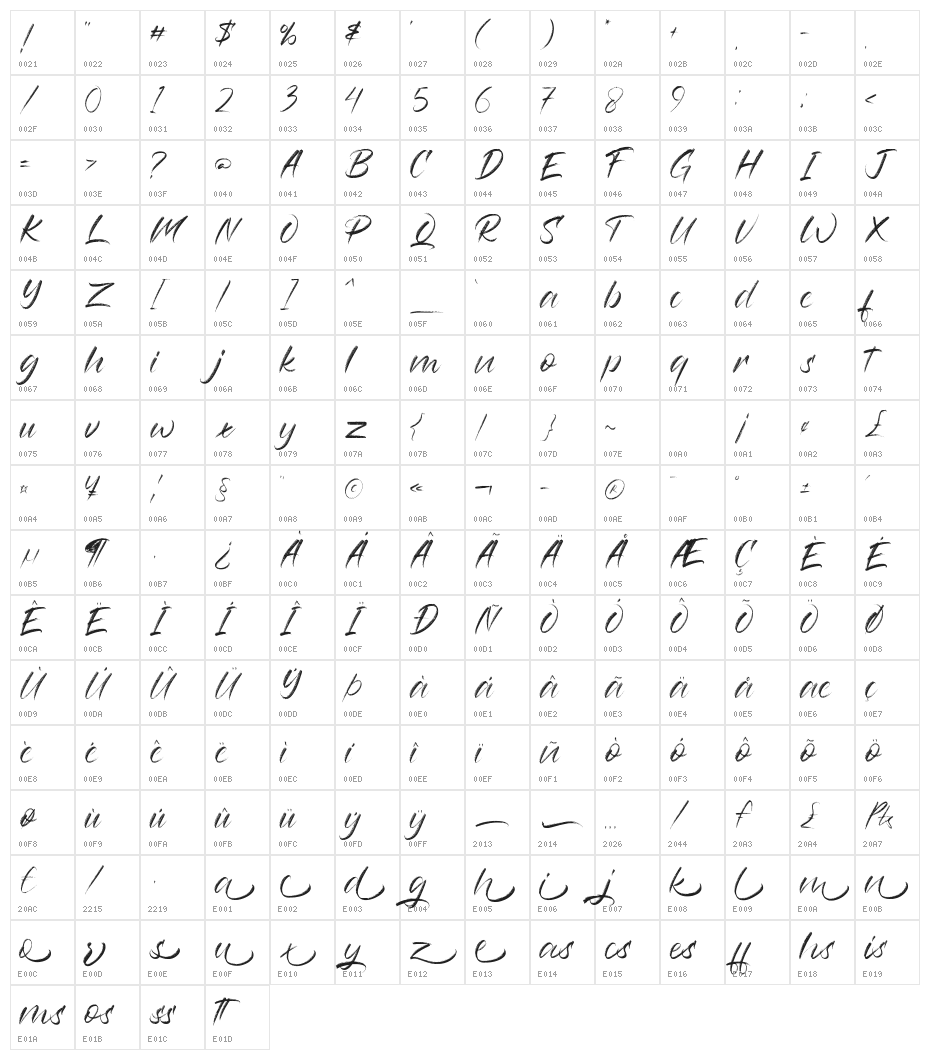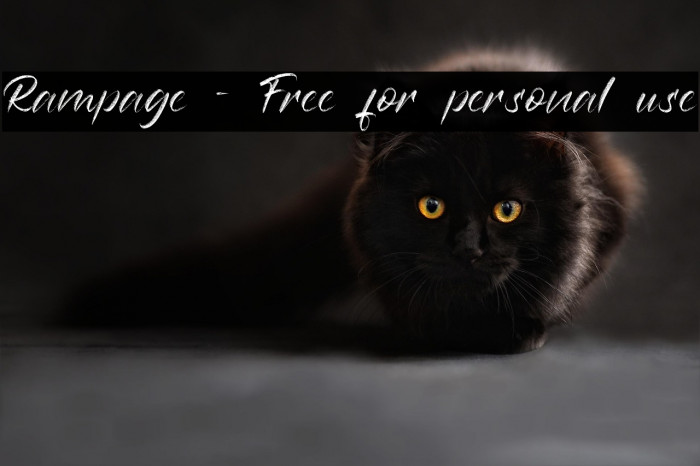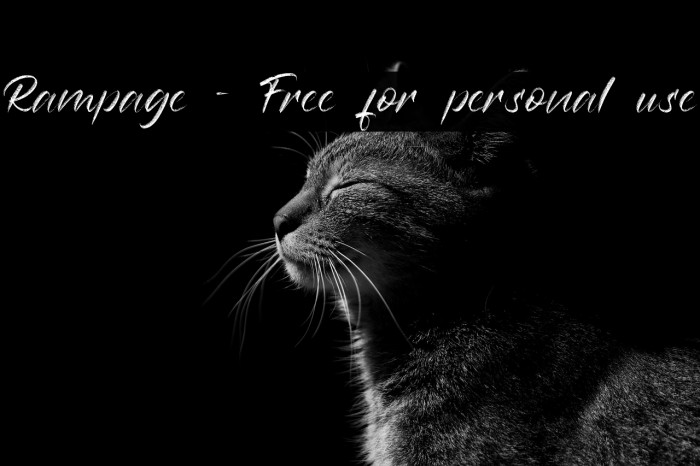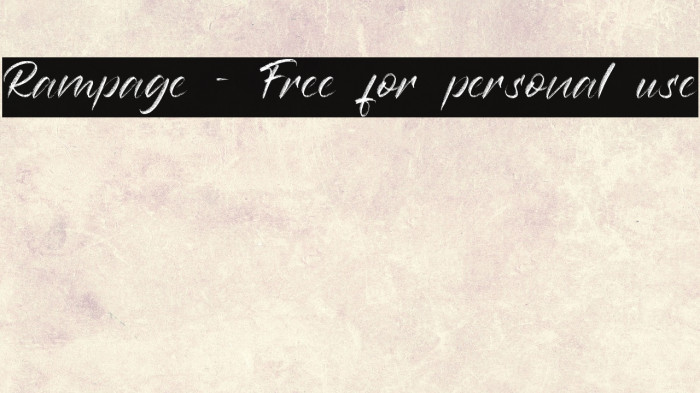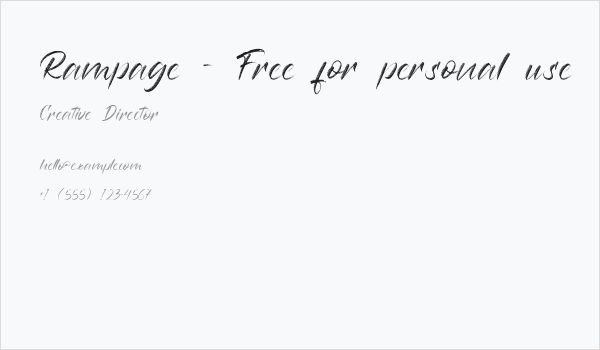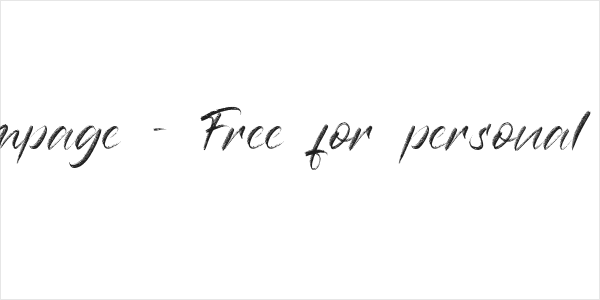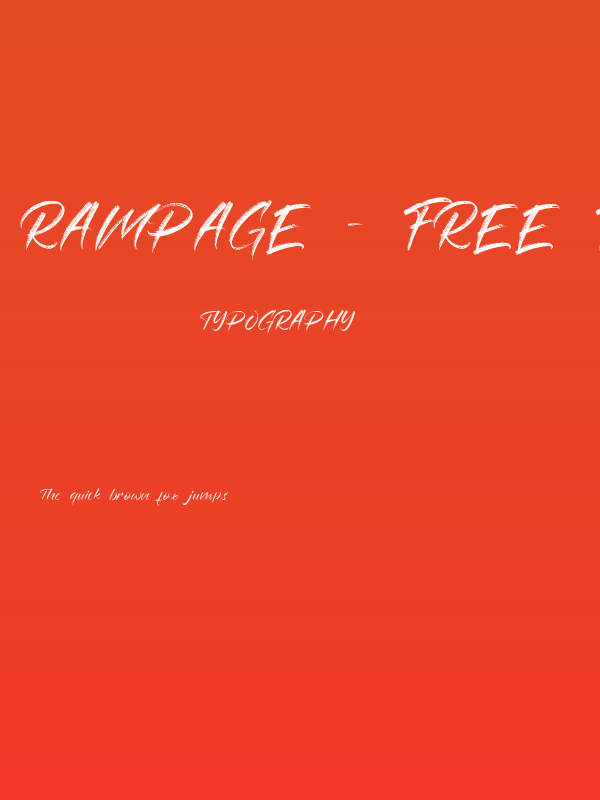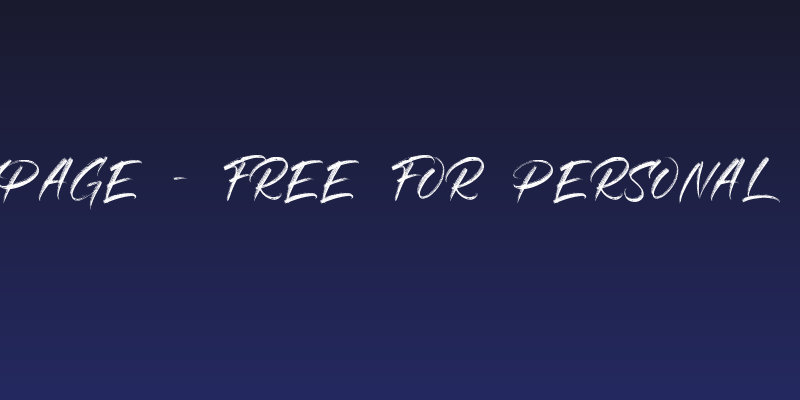
Rampage - Free for personal use Font
Rampage - Free for personal use Description
This font exudes a dynamic and energetic vibe with its brush-like strokes and fluid motion. The letters are crafted with a sense of spontaneity, giving them a lively and expressive character. The uppercase and lowercase letters maintain a consistent style, with a slightly slanted orientation that adds to the sense of movement. The numerals and special characters are designed with the same artistic flair, ensuring a cohesive look across all elements. The texture of the strokes suggests a hand-drawn quality, making it ideal for projects that require a personal touch.